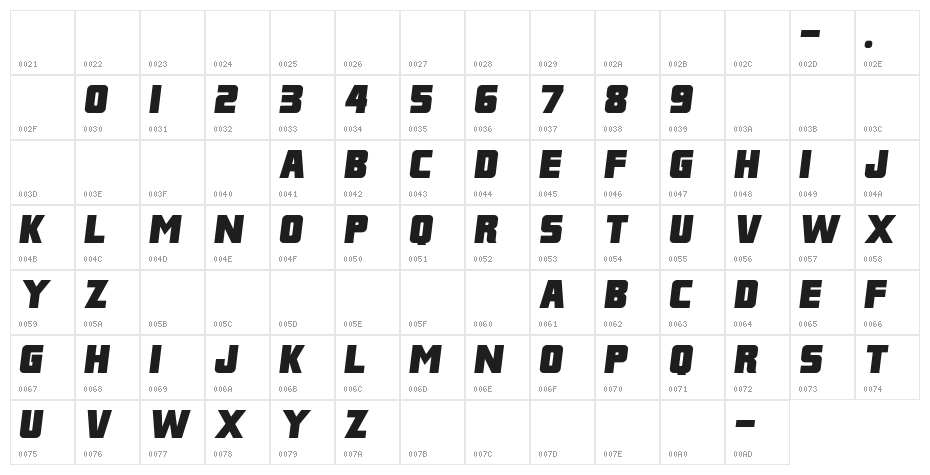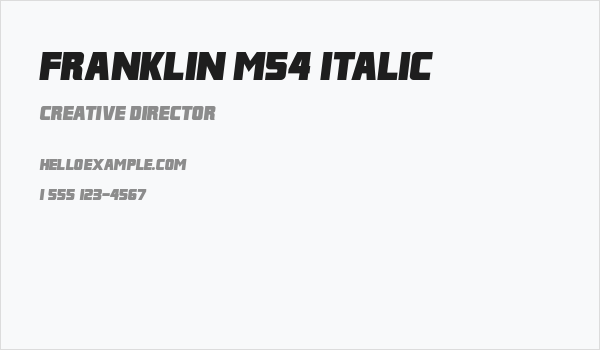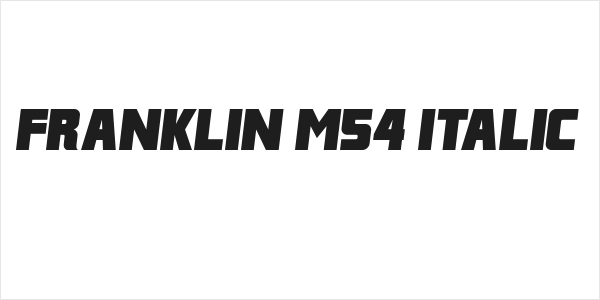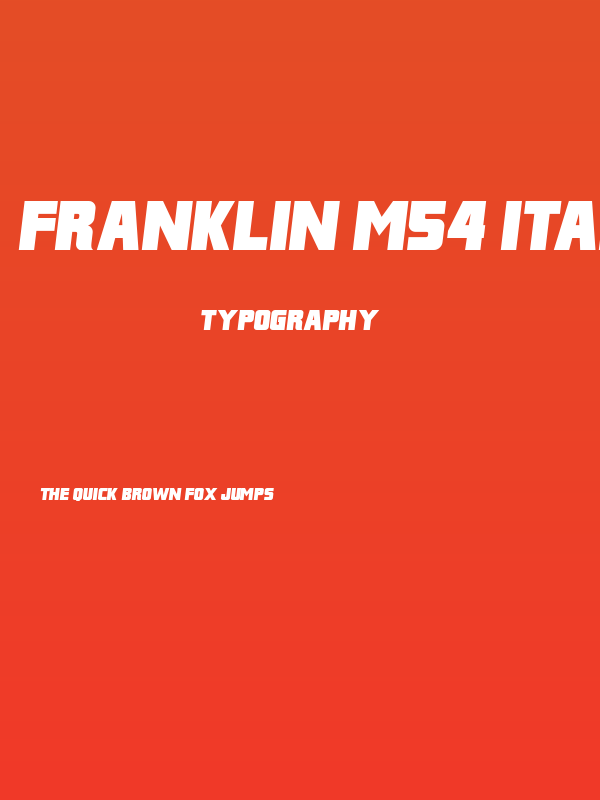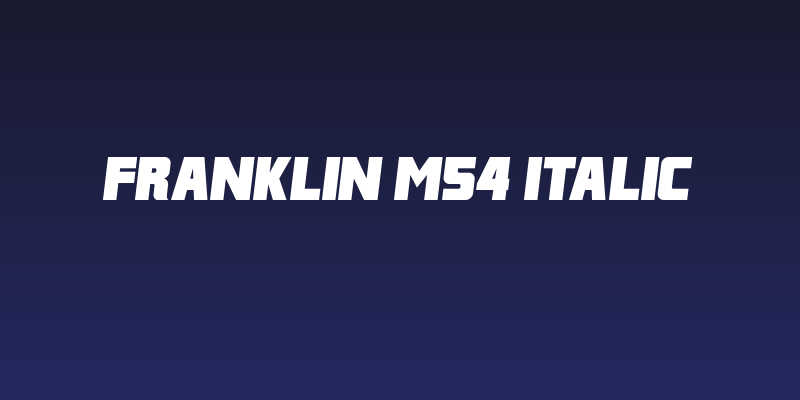
Franklin M54 Italic Font
Franklin M54 Italic Description
This font features a bold and dynamic style with a strong presence. The characters are italicized, giving them a forward-leaning posture that suggests movement and energy. The strokes are thick and consistent, providing a robust and impactful appearance. The uppercase and lowercase letters maintain a uniform width, contributing to a cohesive look. The numerals are equally bold, ensuring they stand out prominently. The special characters are designed to match the overall boldness and style of the font, making it suitable for attention-grabbing designs.
| Proposed Projects | Ideal for sports branding, dynamic posters, headlines, and any project requiring a strong, impactful typeface. |